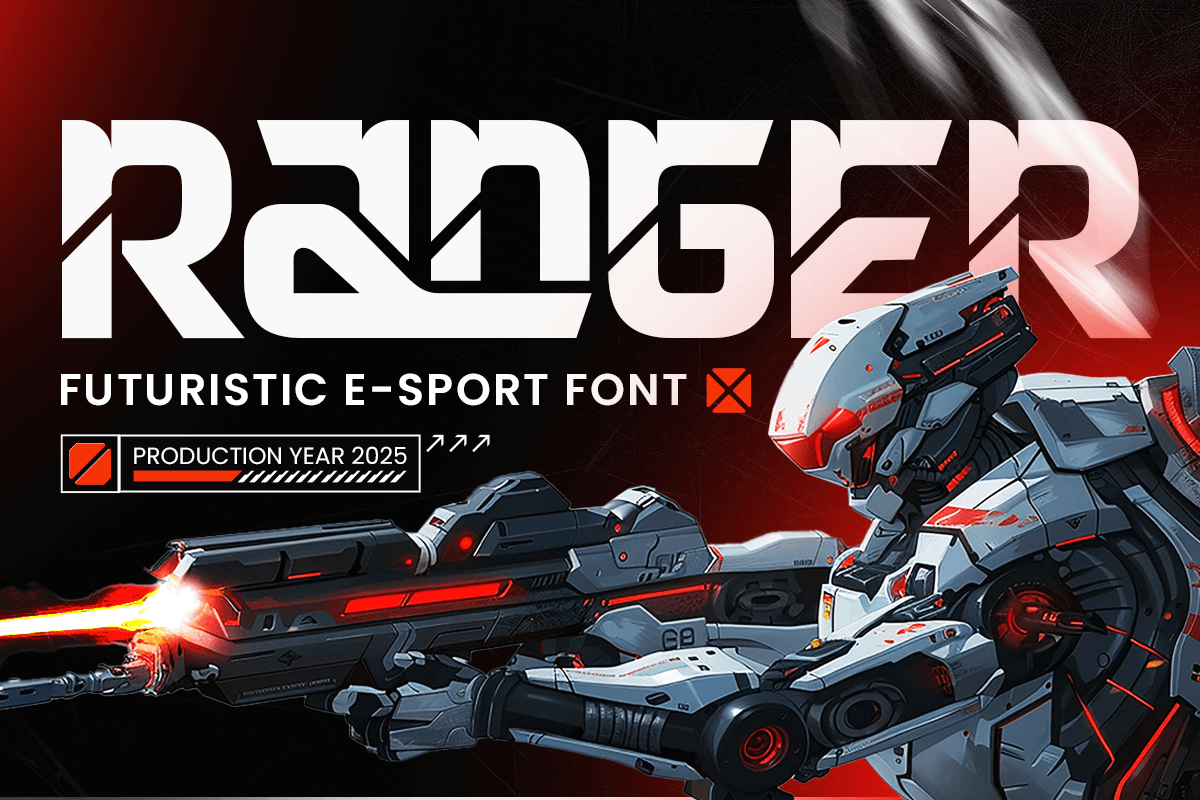
Ranger
-Futuristic E-Sport FontRanger - Futuristic E-Sport Font
RANGER is a futuristic e-sport font designed for gaming, digital branding, and high-impact esports projects. Ideal for team logos, posters, banners, and social media graphics, it combines sharp geometric shapes with a modern, energetic aesthetic.
With bold, legible letterforms, RANGER ensures your designs look professional, dynamic, and futuristic across both digital and print media, making it perfect for esports and gaming brands.
RANGER – Futuristic E-Sport Font Features
Futuristic and bold character set
Perfect for e-sports, gaming, and display designs